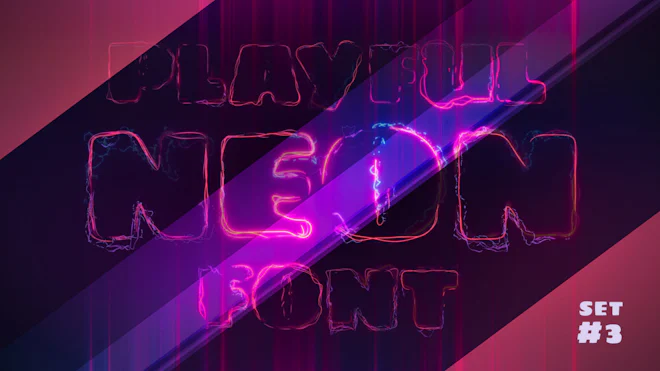
Pack 3/5 includes U to Z letters and 4 currency signs: Dollar, Euro, Pound and Yen.
Variably paced multicolor neon curves, electric arcs and bright lightnings form a loopable alphabet characters to be used for creating animated titles, words, signs and so on.
The whole pack consists of 53 characters and includes uppercase letters, numerals, currency signs, some special symbols and punctuation for bright and striking dynamic typography of your project.